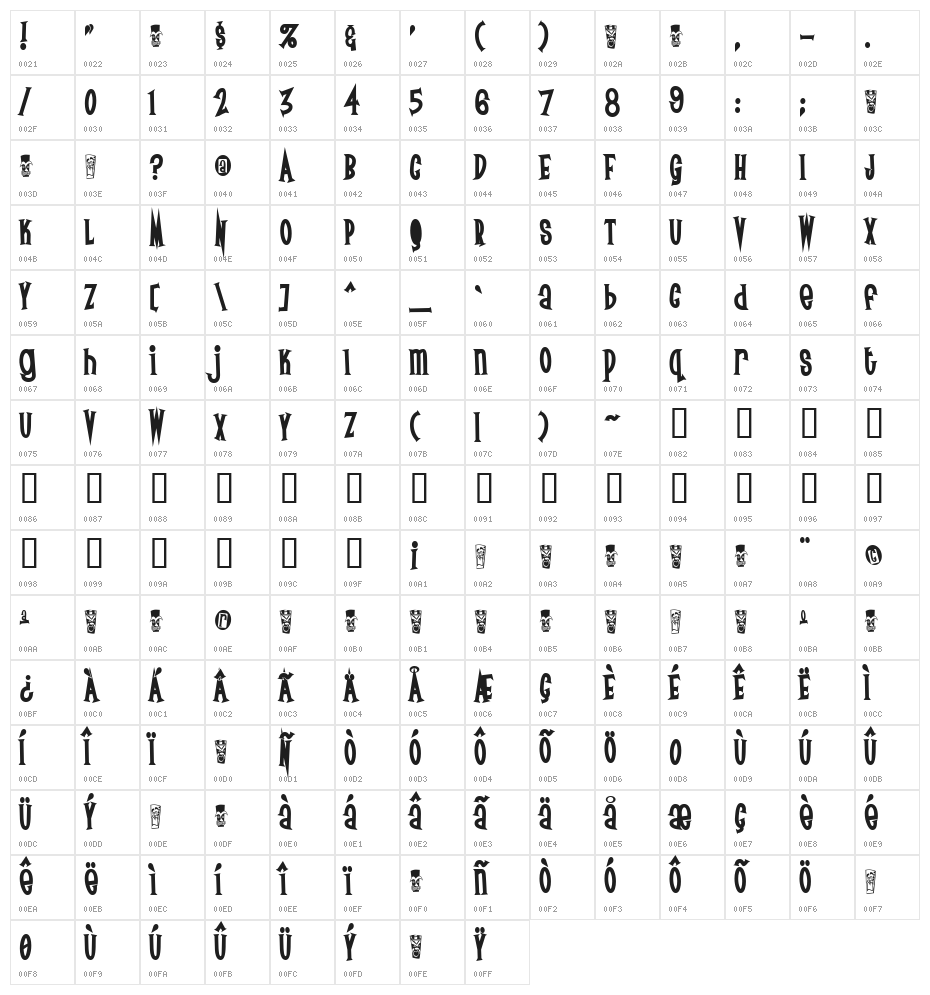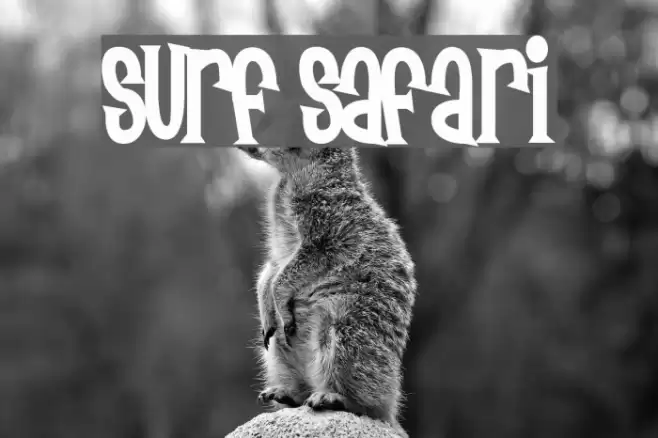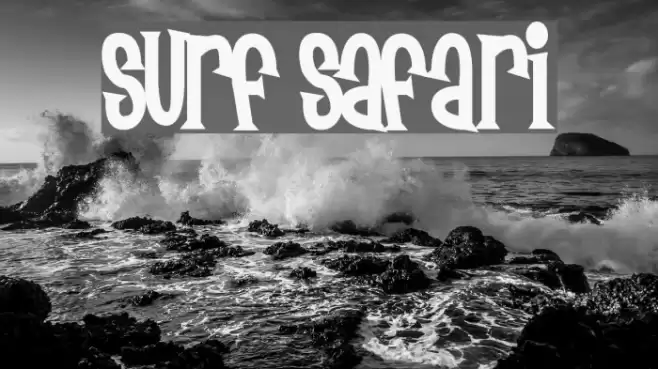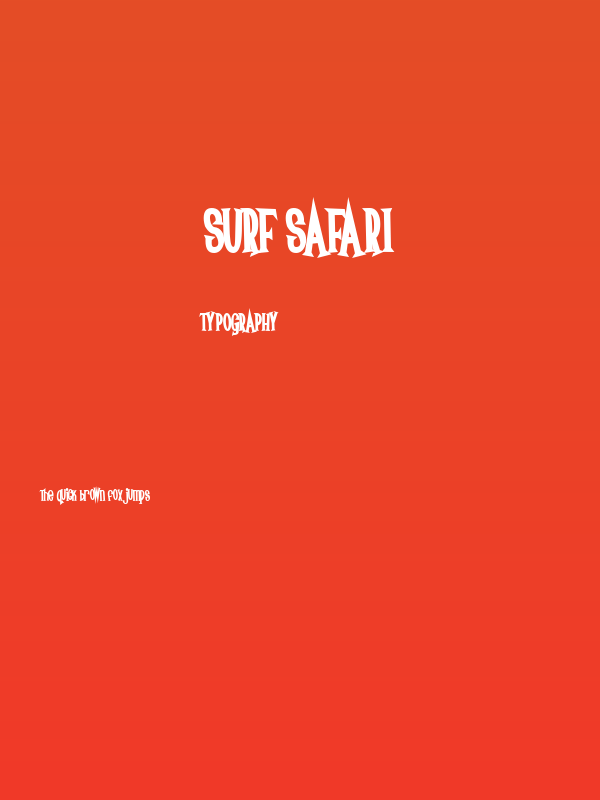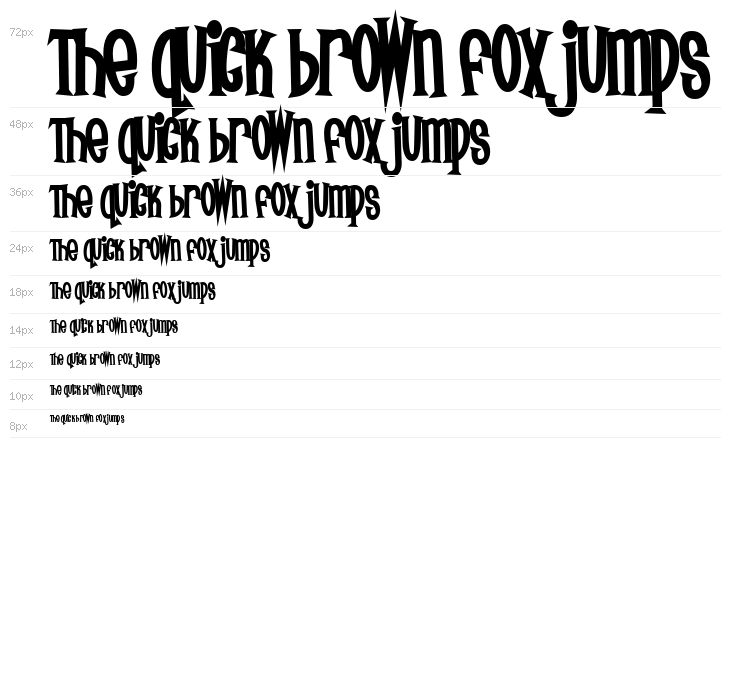
Surf Safari Font
Surf Safari Description
This font features a bold and adventurous style, characterized by its exaggerated serifs and playful, dynamic shapes. The uppercase letters are particularly striking, with sharp angles and a sense of movement that evokes a sense of excitement and energy. The lowercase letters maintain this lively aesthetic, offering a cohesive look across the alphabet. Numbers and special characters are equally bold, with unique designs that add to the overall whimsical feel. This font is perfect for projects that require a fun and eye-catching typeface.
| Overall Style | Playful, Energetic, Adventurous |
| Proposed Projects | Ideal for surf-themed posters, adventure branding, playful packaging, and event flyers. |